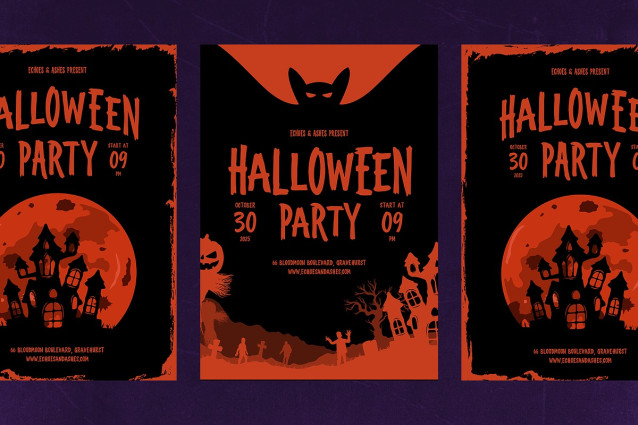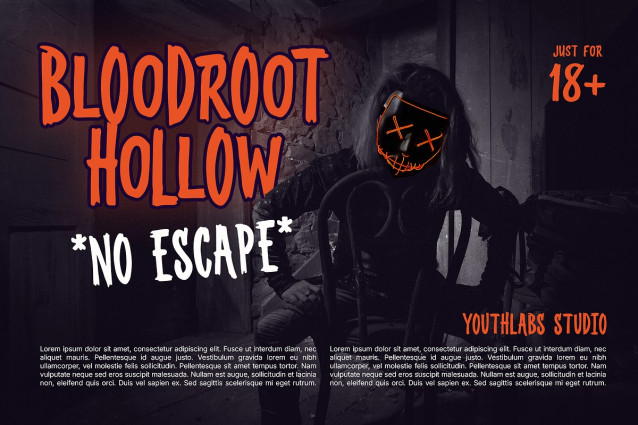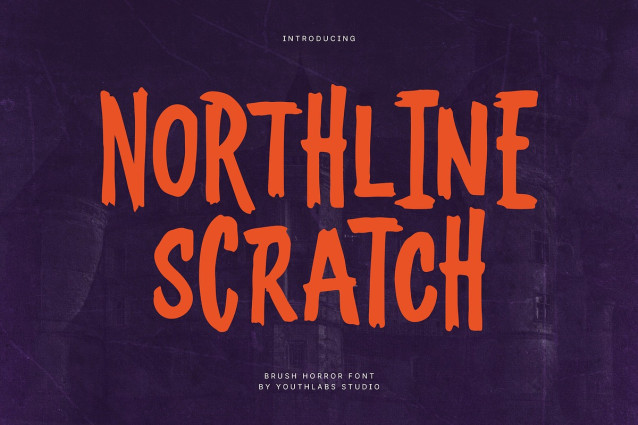
Nortline Scratch Font
Nortline Scratch Font is a raw brush horror typeface inspired by scratched textures, hand-painted strokes, and dark cinematic atmospheres. With its jagged edges, uneven rhythm, and aggressive brush character, this font is built to amplify fear, tension, and chaos. Perfect for horror movies, Halloween designs, album covers, game titles, posters, and eerie branding, Northline Scratch delivers a powerful handcrafted look that feels intense, wild, and unapologetically bold.